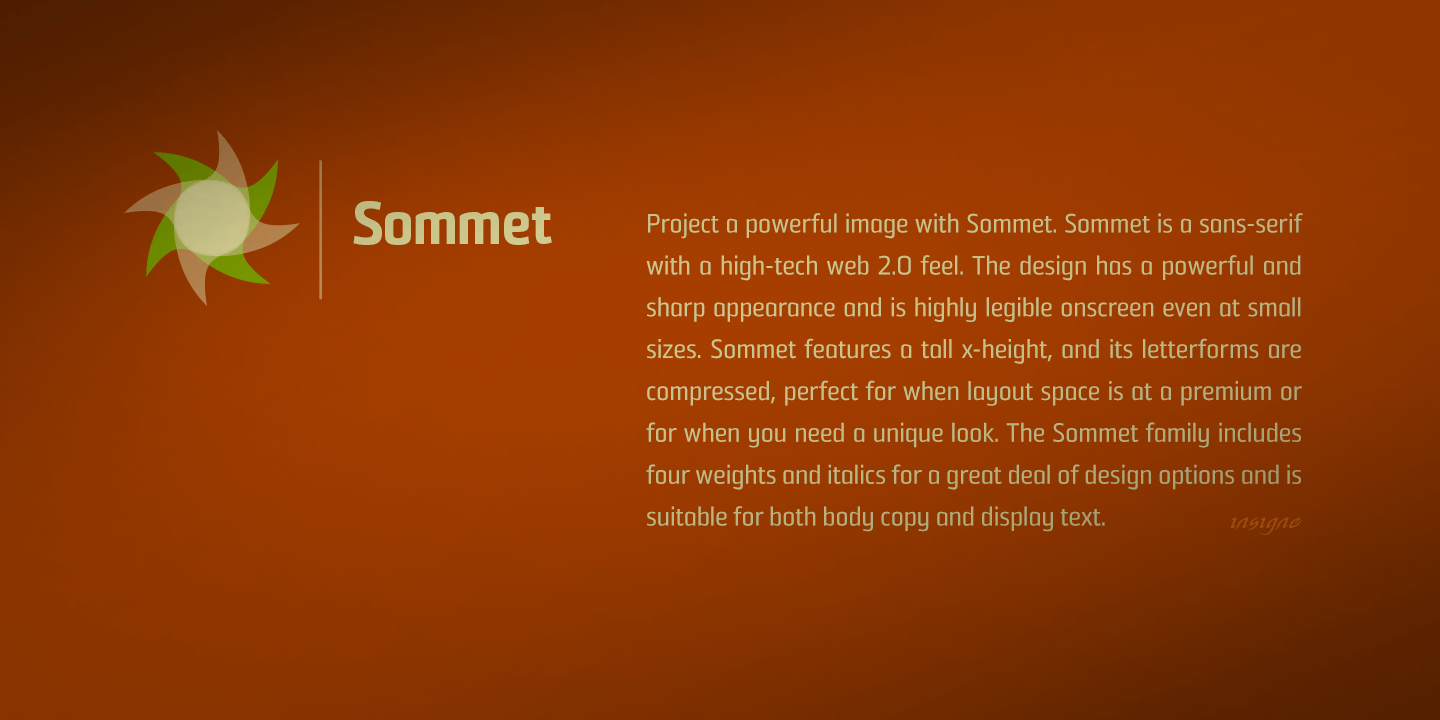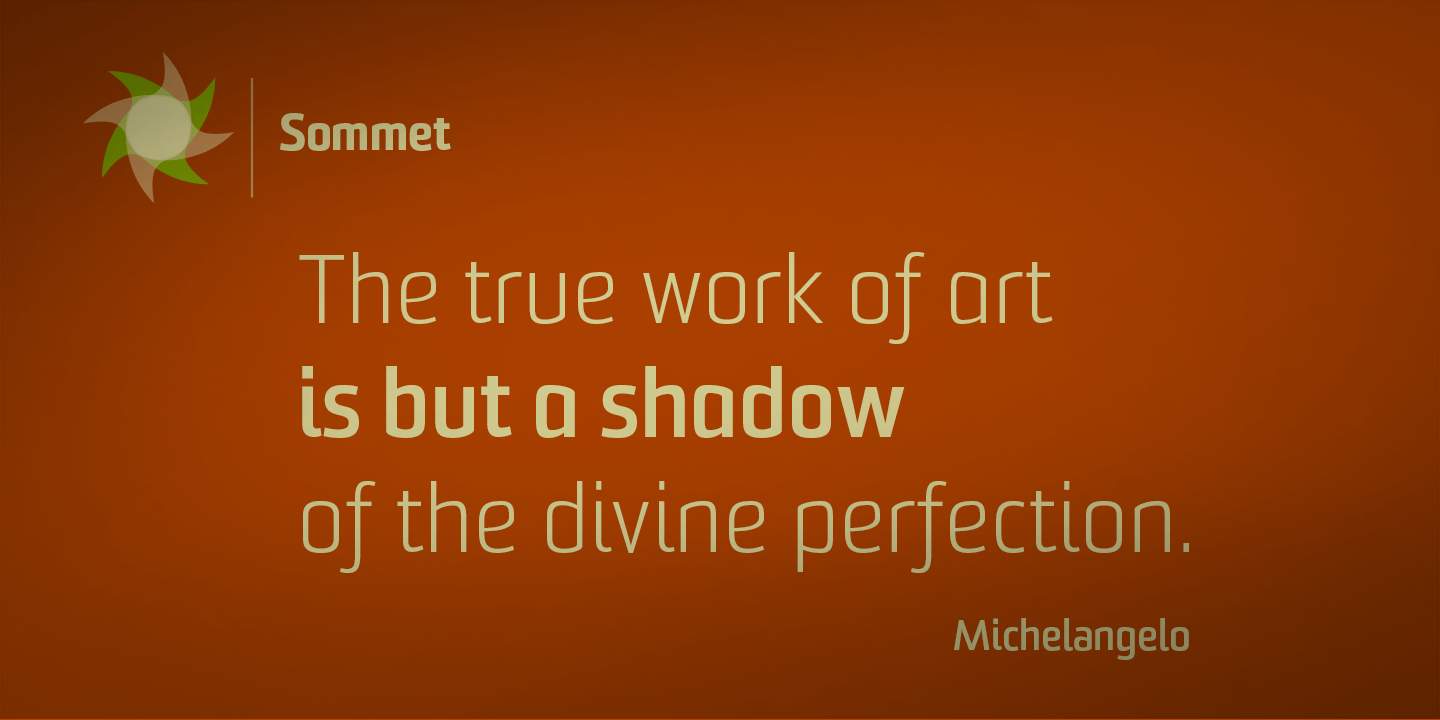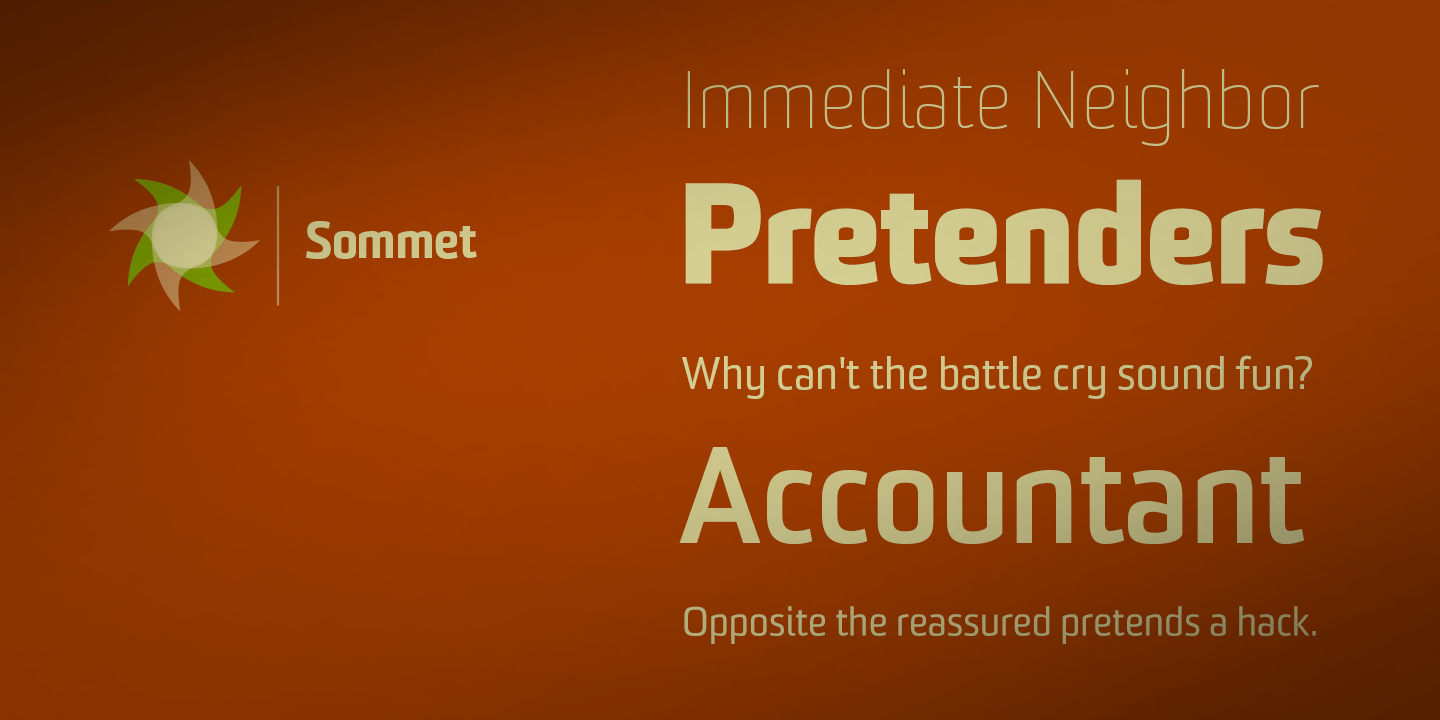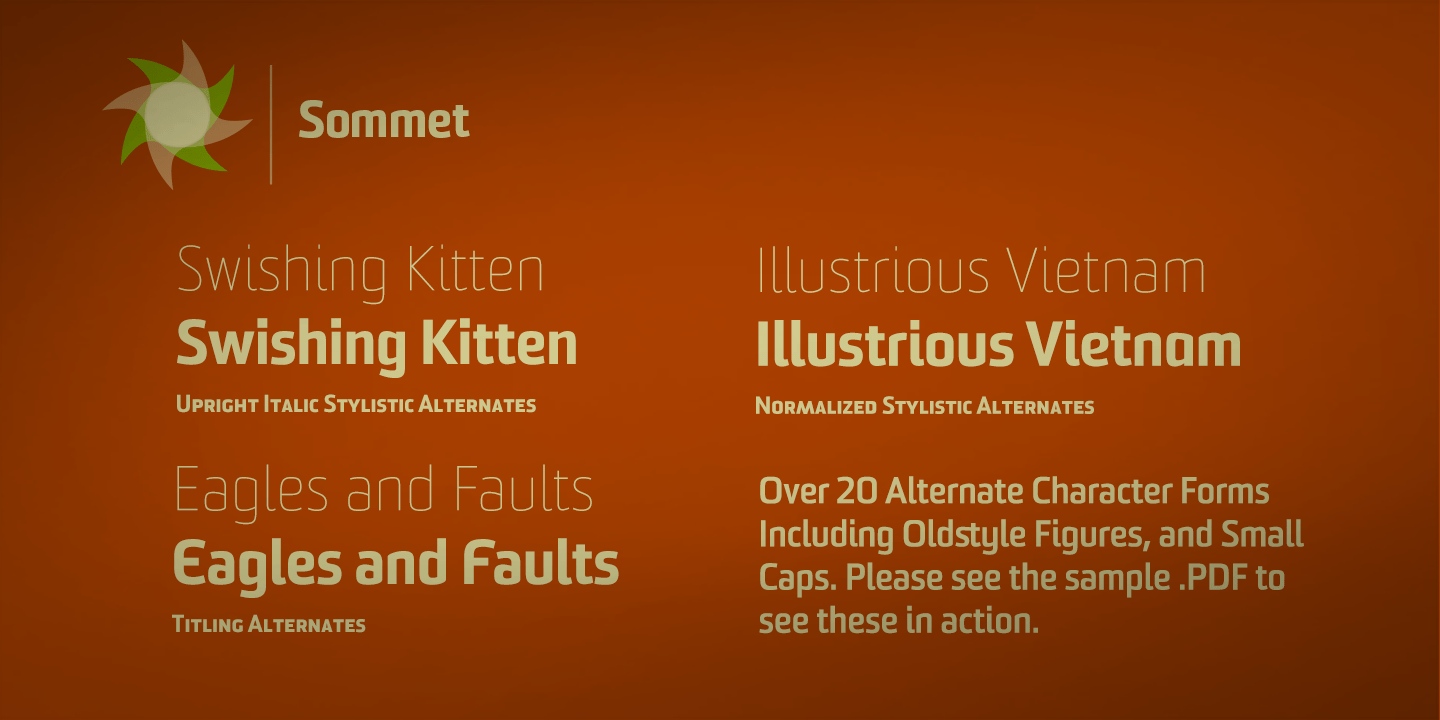
Sommet
Font Family by Insigne
Project a powerful image with Sommet.
Sommet is a sans-serif with a high-tech web 2.0 feel. The typeface family is a powerful and sharp design that is highly legible onscreen even at small sizes. Sommet features a tall x-height, and its letterforms are compressed, perfect for when layout space is at a premium.
Updated in early 2010, the Sommet family now includes six weights and italics for plenty of design options and is suitable for body copy and display text. Be sure to check out Sommet's companion faces, Sommet Rounded and Sommet Slab.